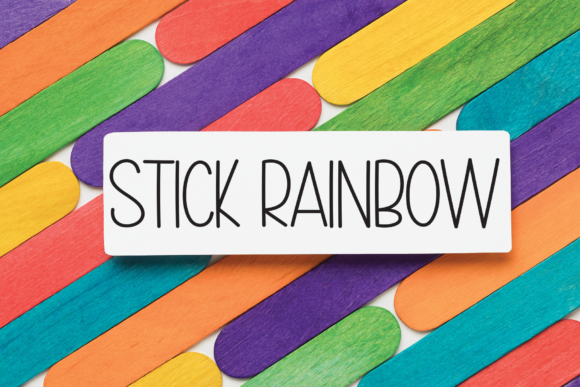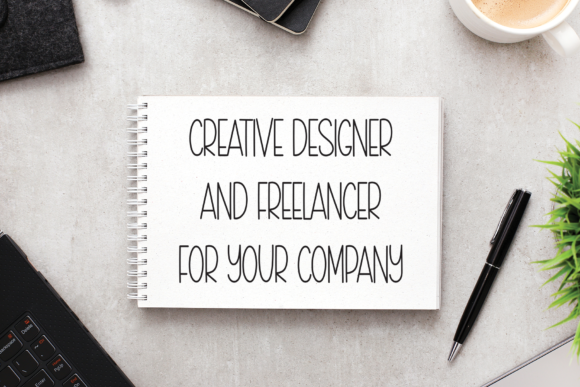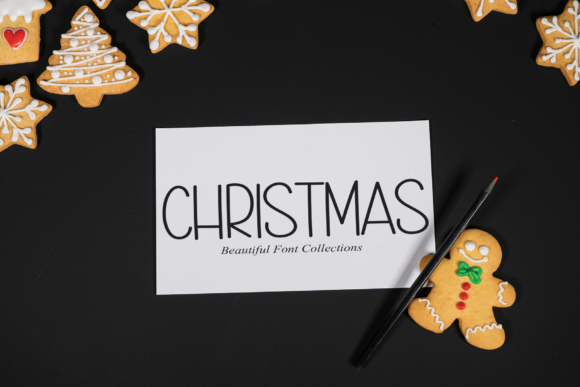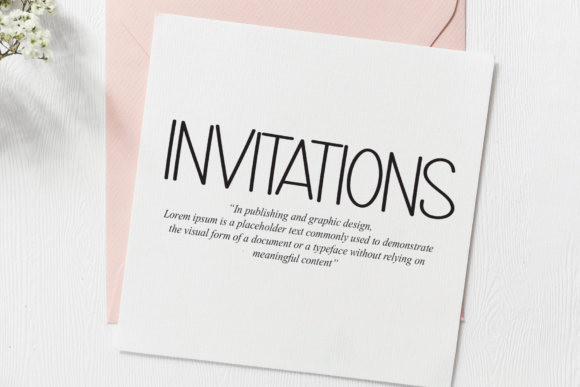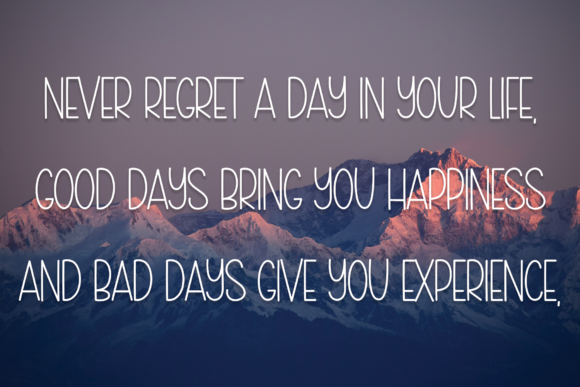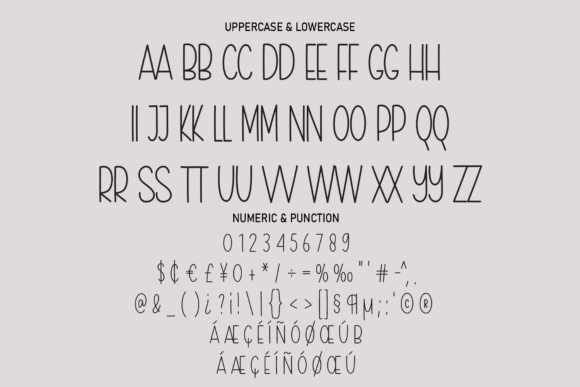
Introducing Blossom Font: The Ultimate Handwritten Companion for Designers and Crafters
In the world of typography, a font can make or break a design. As a designer or crafter, you’re constantly on the lookout for that perfect typeface that can elevate your project from good to great. If you’re in search of a clean, relaxed, and friendly handwritten font that can adapt to various design needs, look no further than Blossom Font. In this article, we’ll dive into the features, benefits, and uses of Blossom Font, and explore why it’s poised to become your go-to font for all occasions.
What is Blossom Font?
Blossom Font, also known as iBlossom, is a beautifully crafted handwritten font that’s characterized by its neat and simple style. The font’s creator aimed to design a typeface that’s both clean and friendly, making it suitable for a wide range of design applications. Whether you’re working on a branding project, crafting a social media post, or creating a handmade card, Blossom Font is the perfect companion to help you convey your message with elegance and warmth.
Key Features of Blossom Font
- Clean and Simple Style: Blossom Font boasts a minimalist approach to handwritten typography, making it easy to read and versatile for various design contexts.
- Relaxed and Friendly: The font exudes a sense of approachability and warmth, perfect for designs that require a personal touch.
- High Legibility: Blossom Font is designed to be clear and legible, ensuring that your message is conveyed effectively, even at smaller font sizes.
- Adaptable: This font can be used for both digital and print designs, making it a valuable addition to your design library.
Benefits of Using Blossom Font
So, why should you choose Blossom Font for your next design project? Here are just a few benefits of incorporating this beautiful font into your workflow:
- Time-Saving: With Blossom Font, you can achieve professional-looking results without spending hours searching for the perfect font or tweaking the design.
- Consistency: Using a single, high-quality font throughout your design ensures consistency and cohesion, which is essential for building a strong brand identity.
- Emotional Connection: The friendly and approachable nature of Blossom Font helps create an emotional connection with your audience, making your design more relatable and engaging.
Uses of Blossom Font
Blossom Font’s versatility makes it suitable for a wide range of design applications, including:
- Branding and Logo Design: Use Blossom Font to create a unique and memorable brand identity that reflects your values and personality.
- Social Media Graphics: Add a personal touch to your social media posts and stories with Blossom Font, making your content stand out in a crowded feed.
- Stationery and Cards: Create beautiful, handmade cards and stationery with Blossom Font, perfect for special occasions or everyday correspondence.
- Web Design: Use Blossom Font to add a touch of warmth and personality to your website, making it more inviting and engaging for visitors.
In conclusion, Blossom Font is a beautiful, clean, and friendly handwritten font that’s perfect for designers and crafters looking for a versatile typeface. With its neat and simple style, high legibility, and adaptable nature, Blossom Font has the potential to become your go-to font for all occasions. Whether you’re working on a branding project, social media graphics, or handmade cards, Blossom Font is sure to elevate your design and help you convey your message with elegance and warmth.